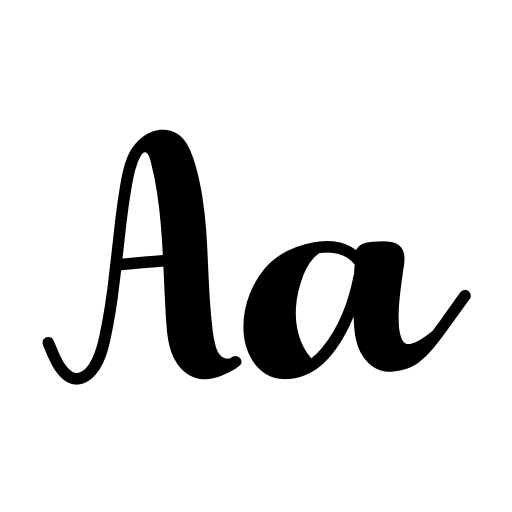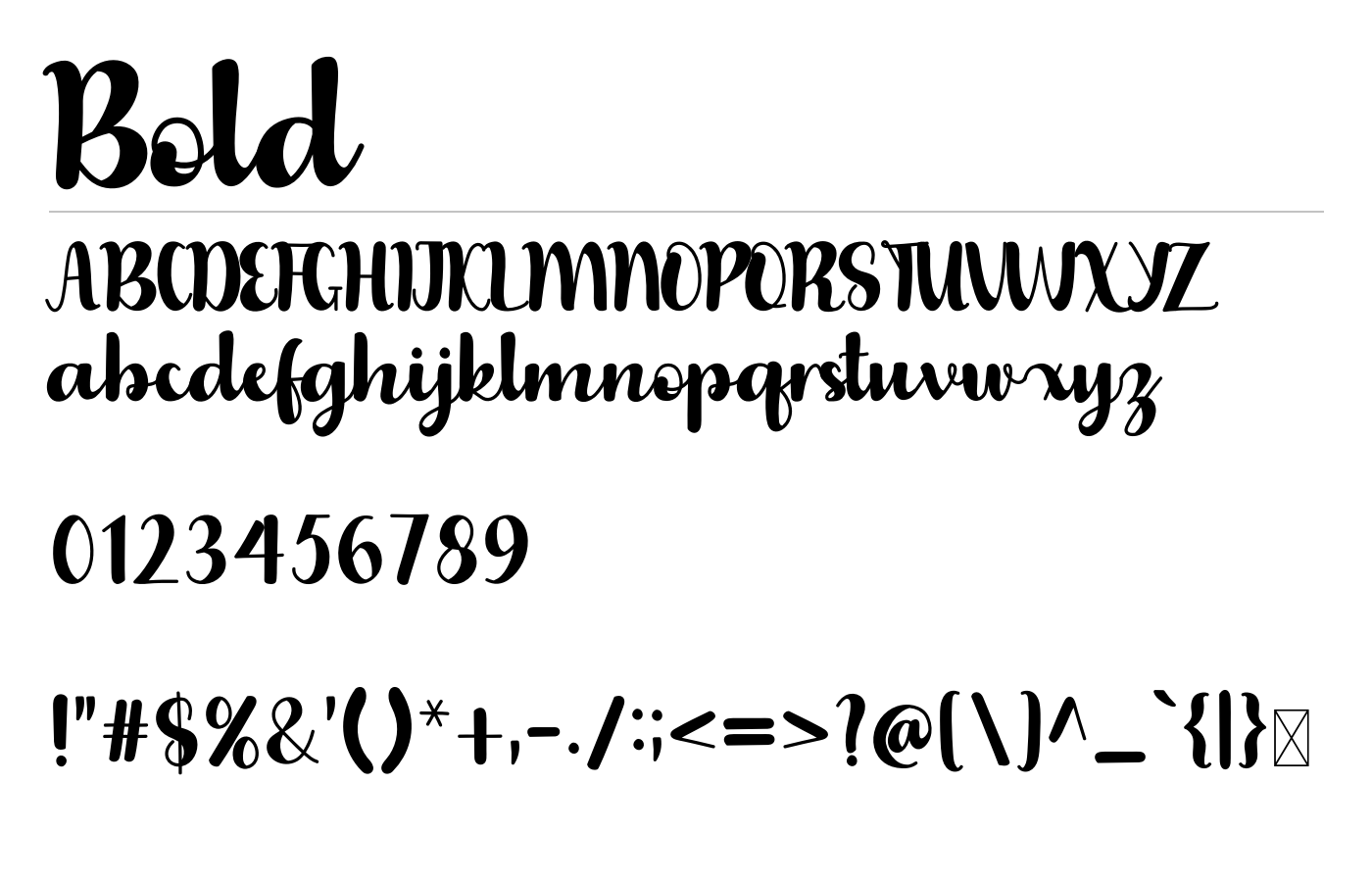
Bold Font is a playful and expressive script typeface with strong, rounded strokes and a lively, hand-crafted feel. Its high contrast and fluid letterforms bring a friendly yet confident personality, making it ideal for creative branding, invitations, and eye-catching headlines where a warm and approachable style is desired.
Bold Font